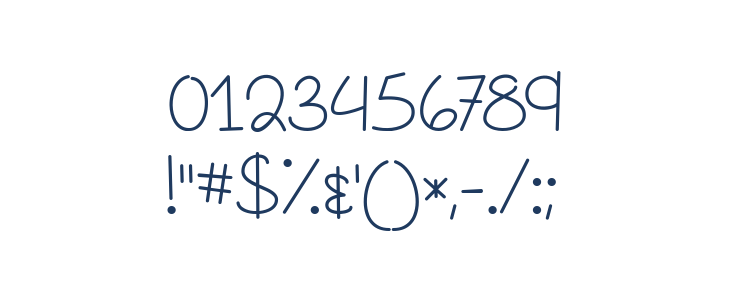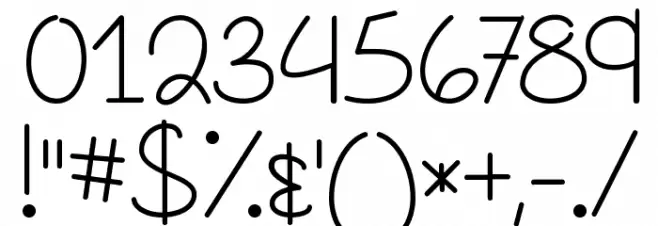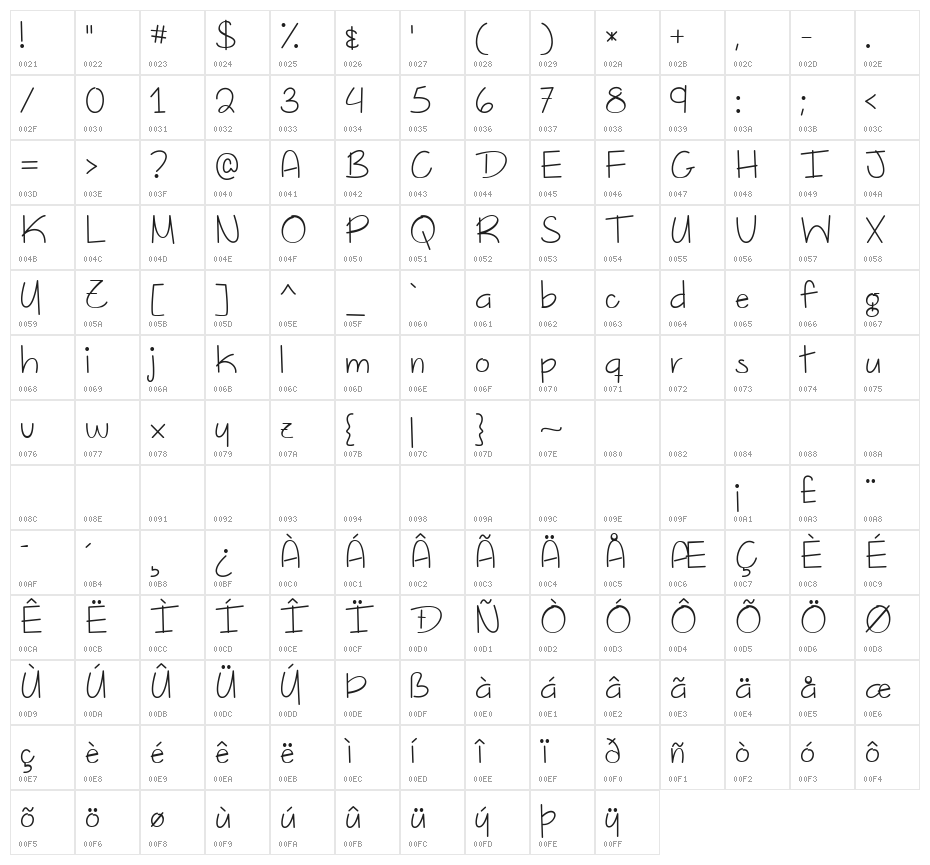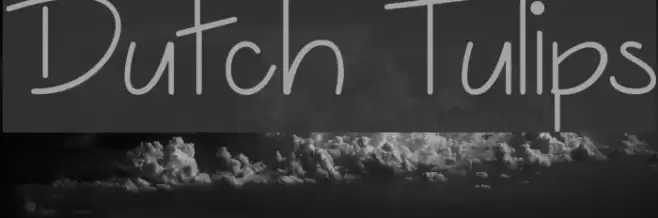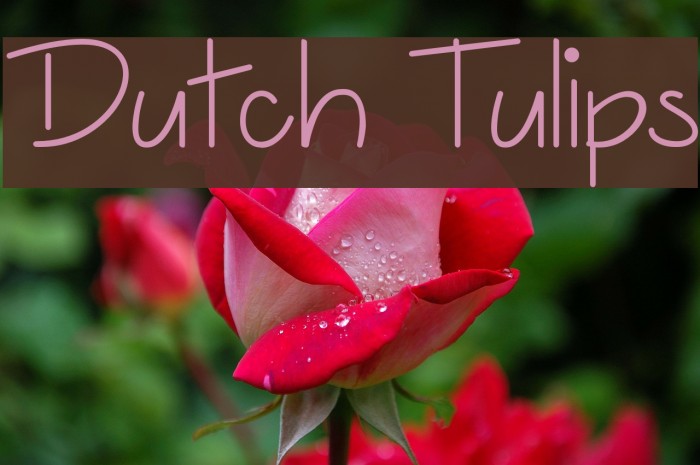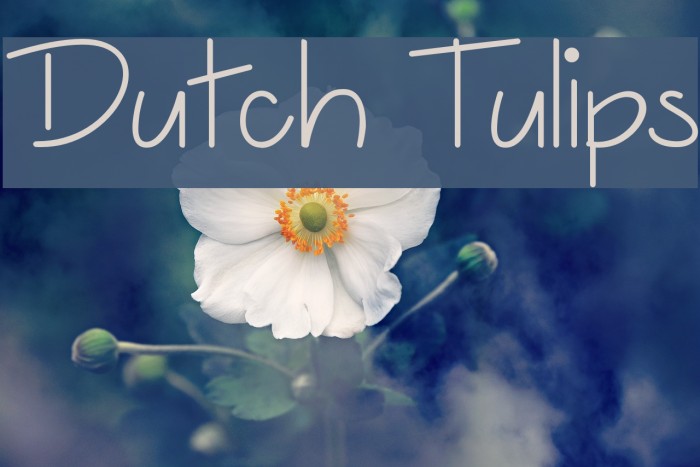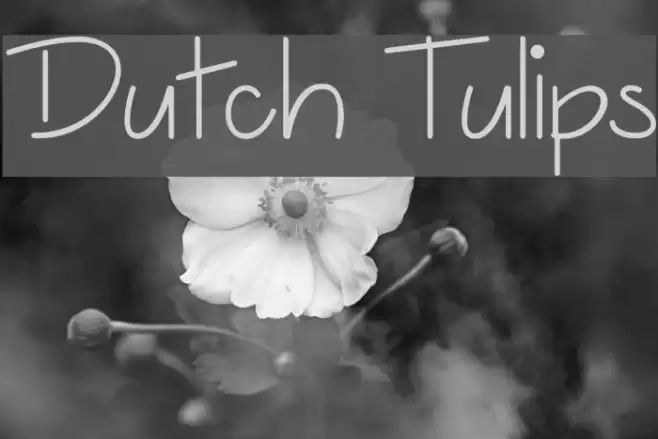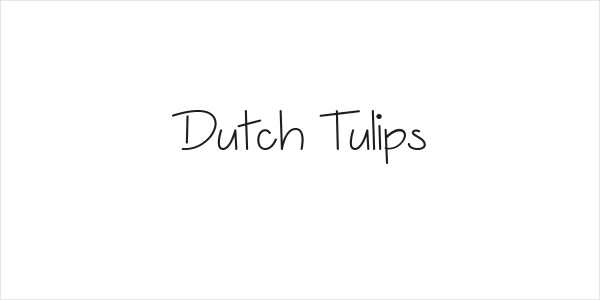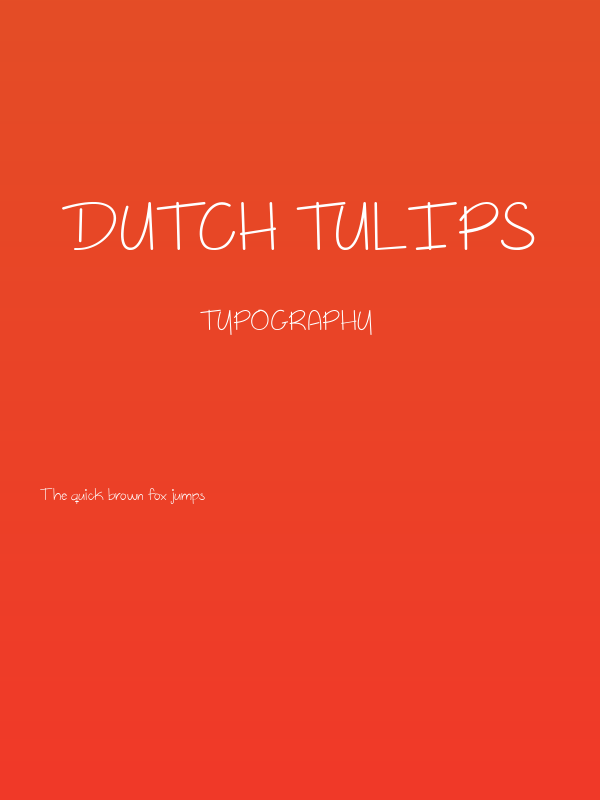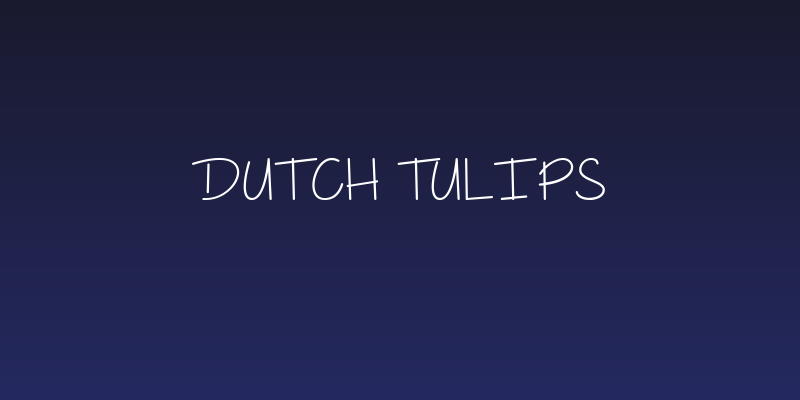
Dutch Tulips Font
Dutch Tulips Description
This playful and whimsical font features a handwritten style with a casual, friendly appearance. The letters are slightly irregular, giving it a personal and approachable feel. The uppercase characters are tall and narrow, while the lowercase letters are more rounded and open. The numbers and special characters maintain the same playful aesthetic, making it versatile for various uses. The strokes are consistent in width, providing a uniform look across all characters. This font is perfect for projects that require a touch of personality and informality.
| Proposed Projects | Ideal for greeting cards, children's books, casual invitations, and playful branding. |